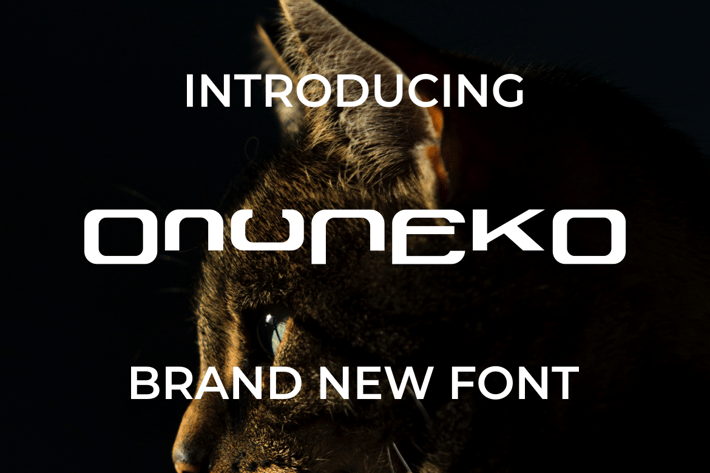
OnuNEkO Font
Introducing our new product OnuNEkO Font - Modern Font
OnuNEkO Font - Modern Font is a bold and authentic display font. The font is suitable for any branding project like logo, t-shirt printing, esport, and many more. outstanding in a wide range of contexts.